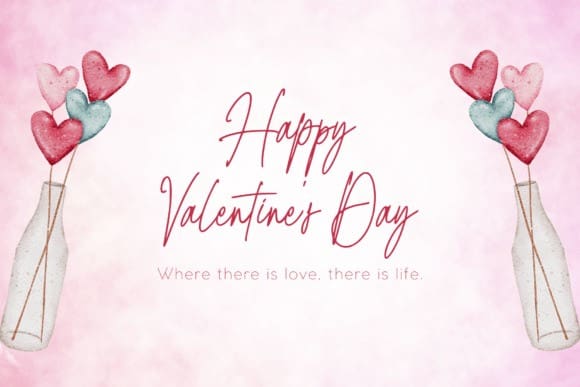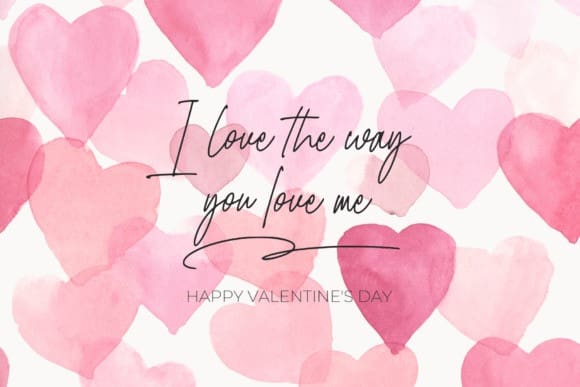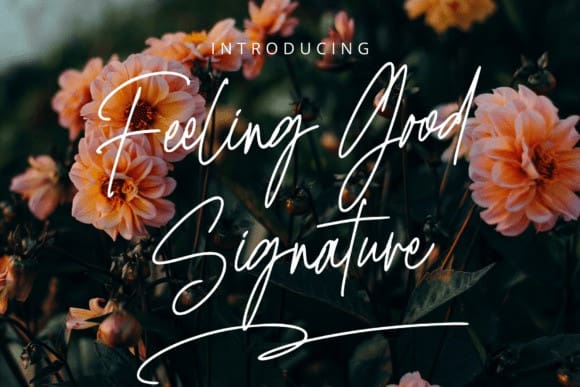
Feeling Good Signature Font
Feeling Good Signature Font a masterfully designed signature font that embodies love and romance in every stroke. While it perfectly encompasses the theme of Valentine’s, it goes beyond seasonal confines and injects vitality into a variety of design needs. The Feeling Good Signature font radiates authenticity, emulating a natural, handwritten style that adds a delicate aesthetic touch. To further enhance this organic design, it features exquisite multiple ligatures and alternate letters, each enhancing its adaptability. Filled with charm and sophistication, the Feeling Good Signature font is your secret weapon in achieving the pinnacle of design elegance.